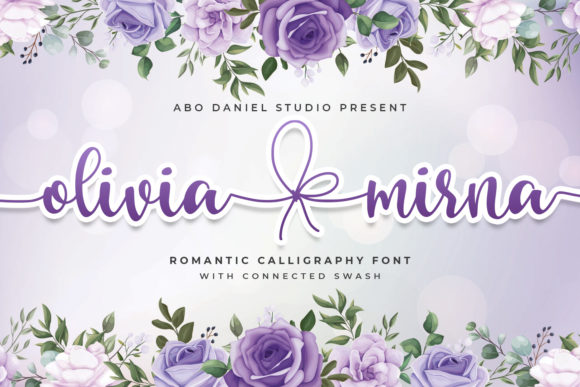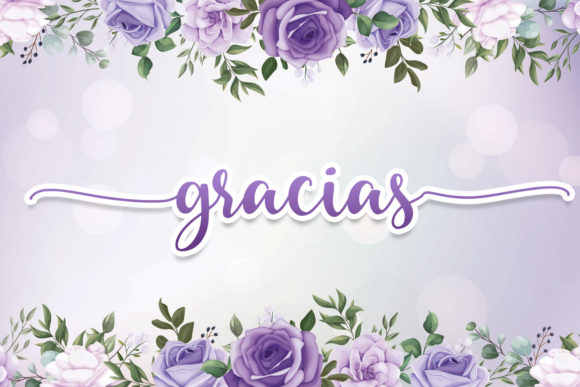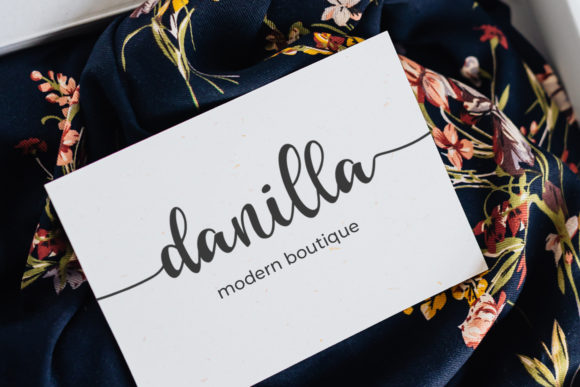
About Olivia Mirna Font
Olivia Mirna is a beautiful handwritten font. It’s playfulness make it great for creative projects, be it inspirational wall posters or for communicating your brand.